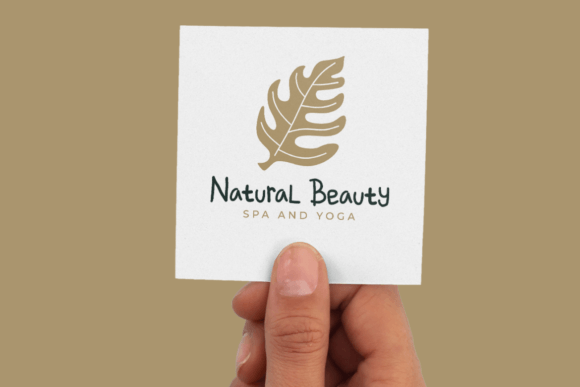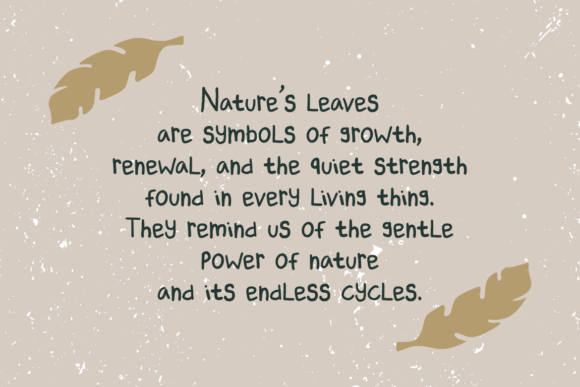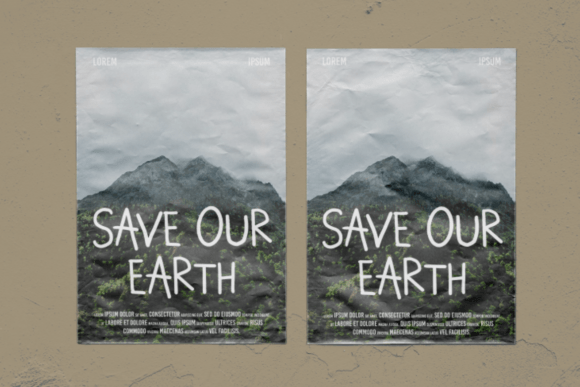
Monopat – Natural Handwritten Font Introducing Monopat – Natural Handwritten Font, a font that captures the essence of spontaneity and charm in every stroke.
This natural handwritten font is a celebration of quirky imperfections and monoline consistency, bringing a touch of humanity to digital design With its rough, scribble-like texture, Monopat evokes the playful sketches of a child’s imagination, making it an ideal choice for projects that require a personal, handcrafted feel.